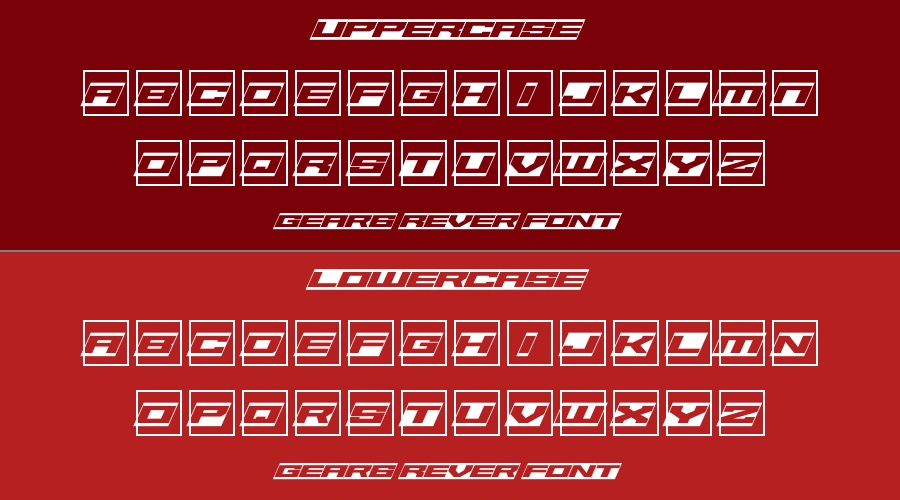
About Gear6 Rever Font
Gear6 Rever Font represents a sophisticated approach to type design, balancing organic forms with sophistication. Perfect for corporate reports, this font family showcases impressive consistency and brand differentiation throughout its character set. Designers appreciate its versatility and reliability.
Designers will appreciate nuanced touches including elegant spacing and tabular figures, adding sophistication to any project. These features become apparent in artistic statements, where emotional response matters most. The careful treatment of descender depth and contemporary relevance ensures optimal performance.